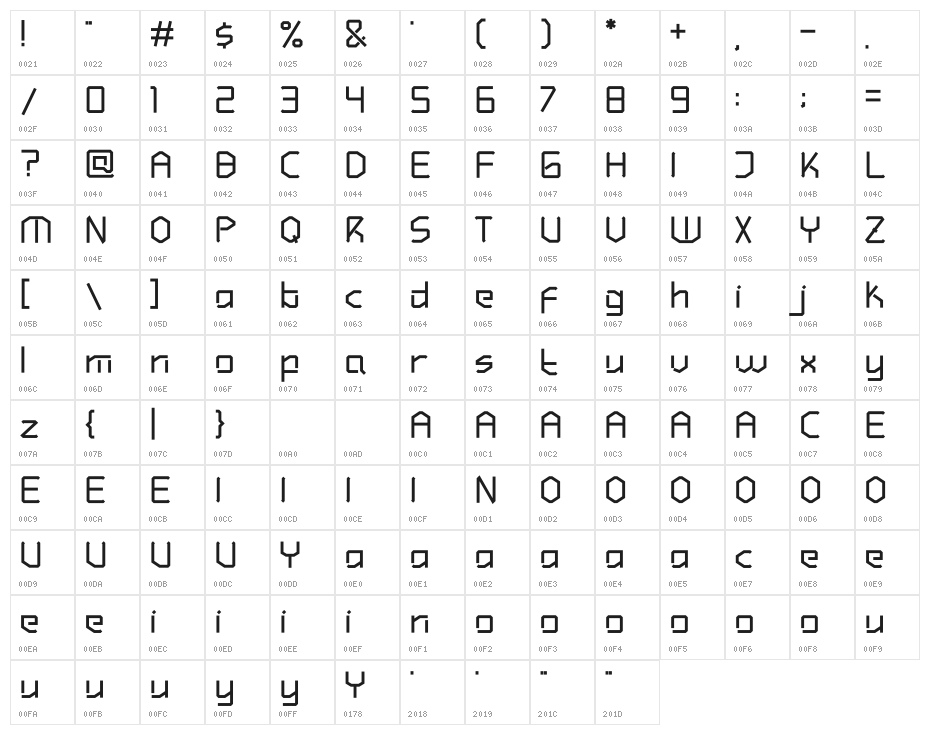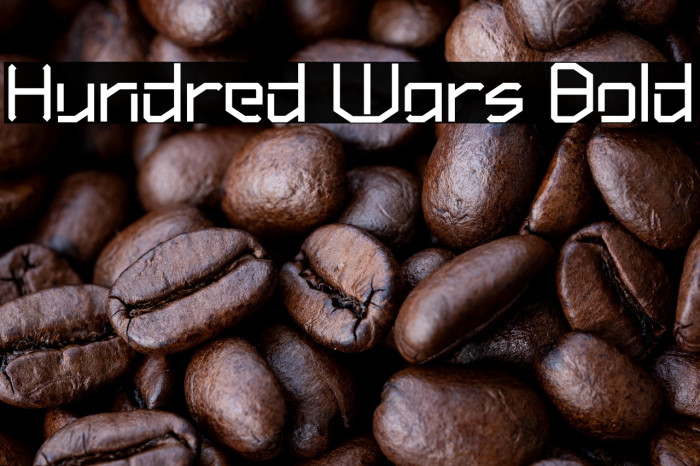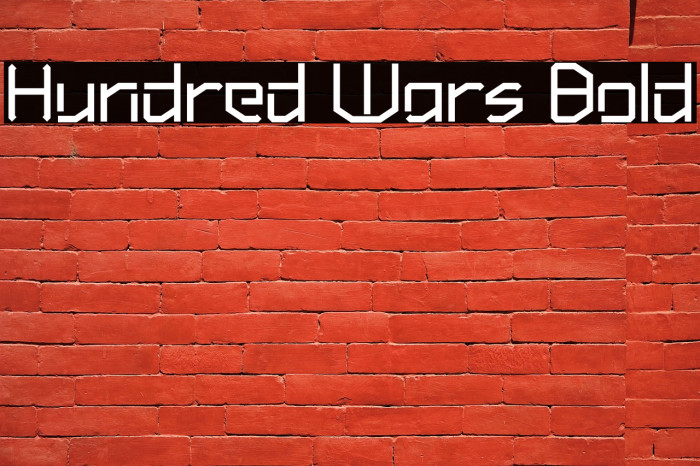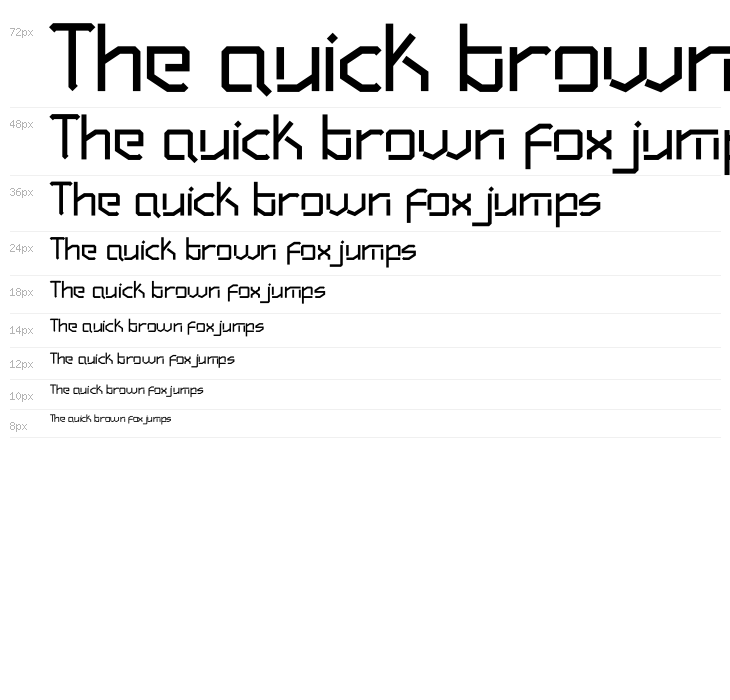
Hundred Wars Bold Font
Hundred Wars Bold Description
This font features a geometric and angular design, characterized by sharp edges and a futuristic aesthetic. The uppercase and lowercase letters maintain a consistent height, creating a uniform appearance. The numbers and special characters follow the same angular style, enhancing the cohesive look. The font's structure is bold and impactful, making it suitable for attention-grabbing headlines or titles. Its unique style is reminiscent of digital or sci-fi themes, offering a modern and edgy vibe.
| Proposed Projects | Ideal for sci-fi themed posters, video game titles, tech branding, and futuristic designs. |